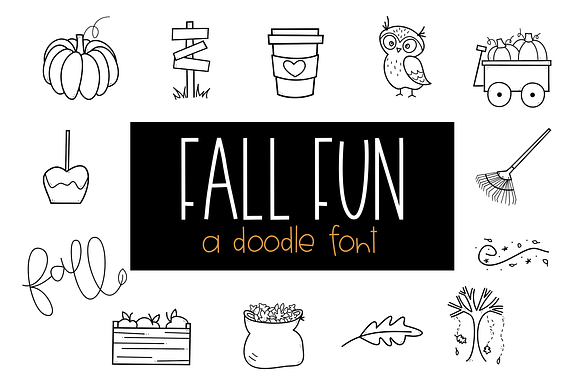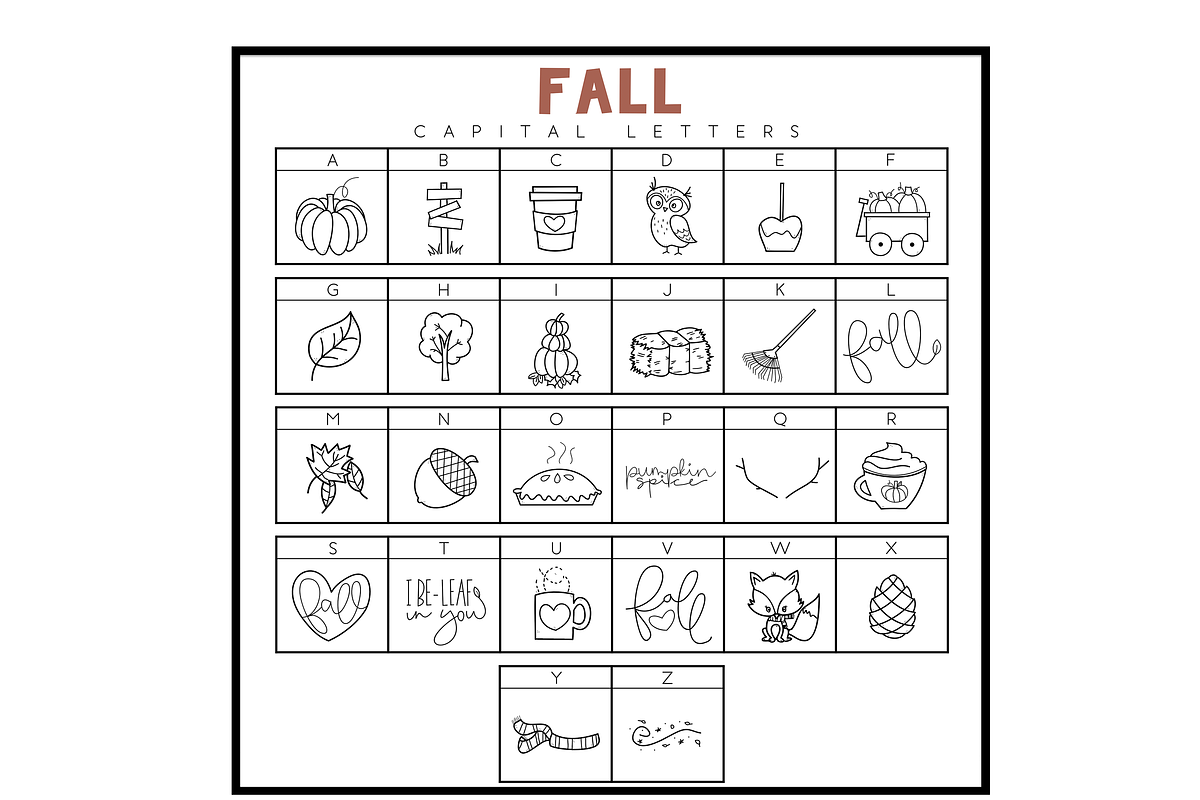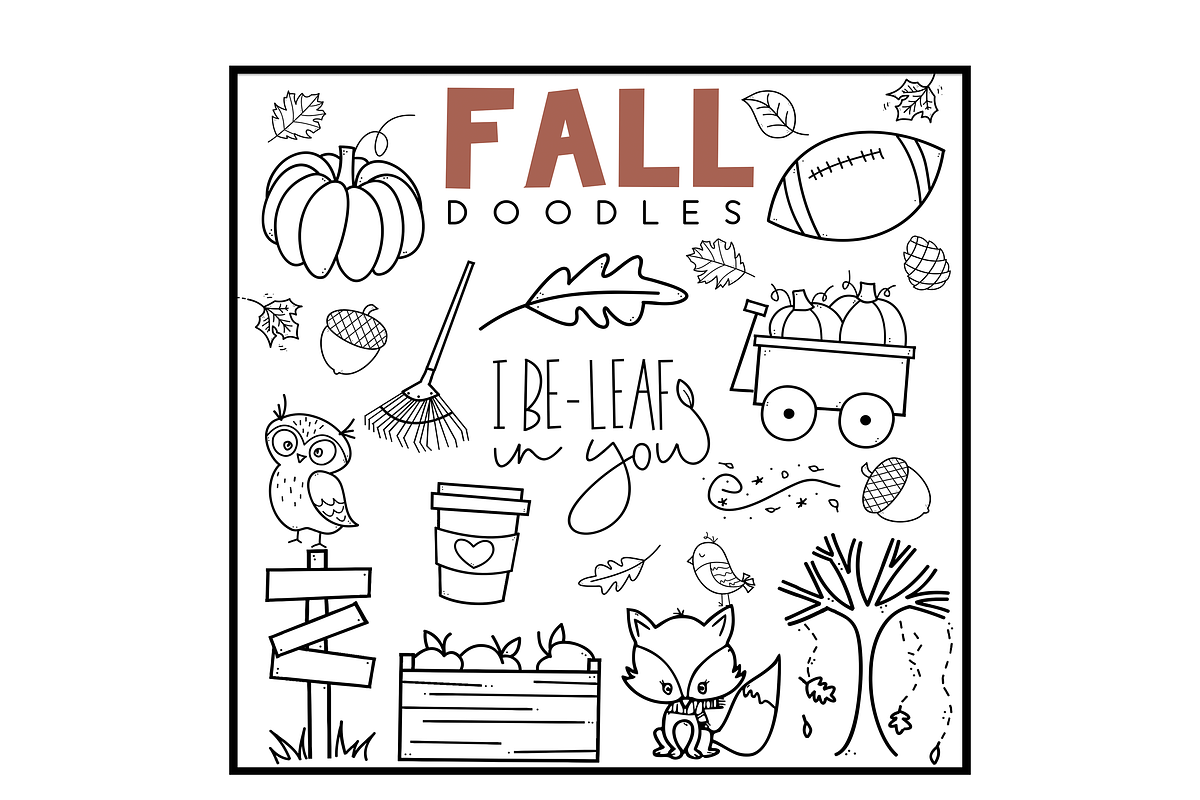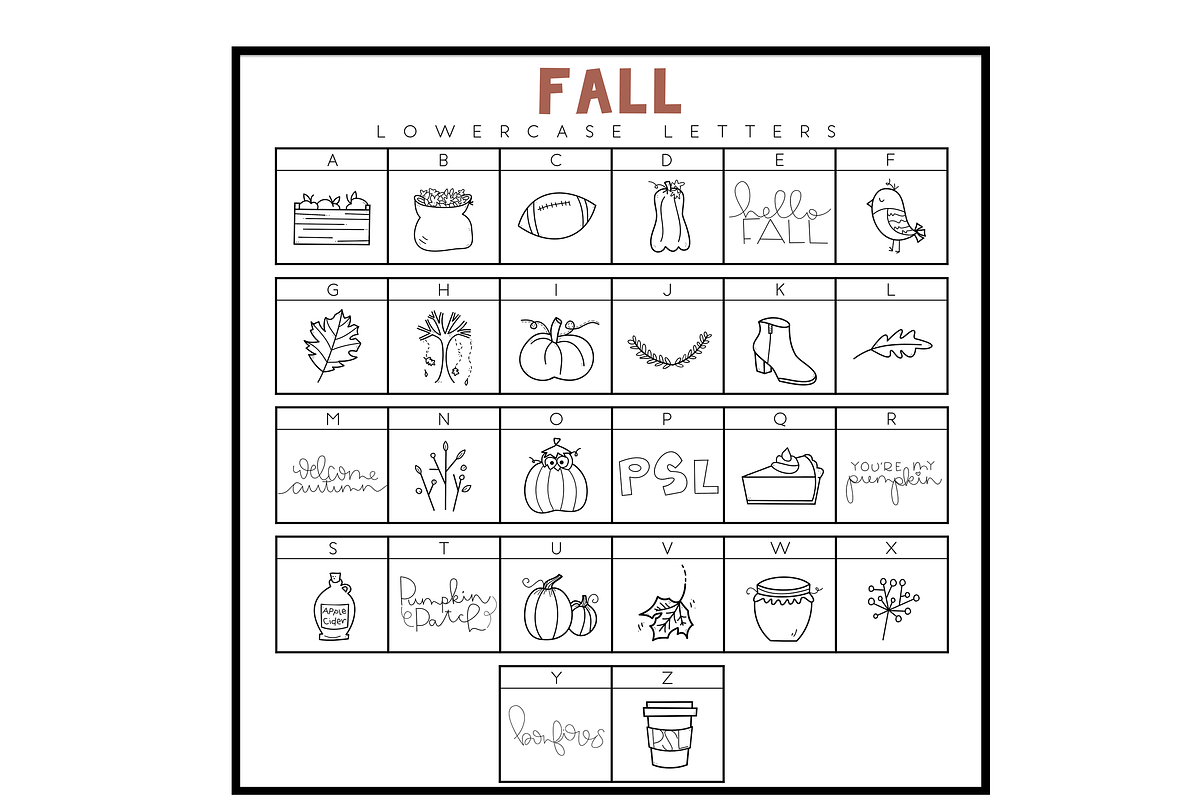
Fall Fun - A Doodles Font
Fall Fun is a doodle (dingbat) font.
You can resize the doodle, color the doodle and add text to the doodles!
- It includes 52 hand-drawn, Fall/Autumn doodles.